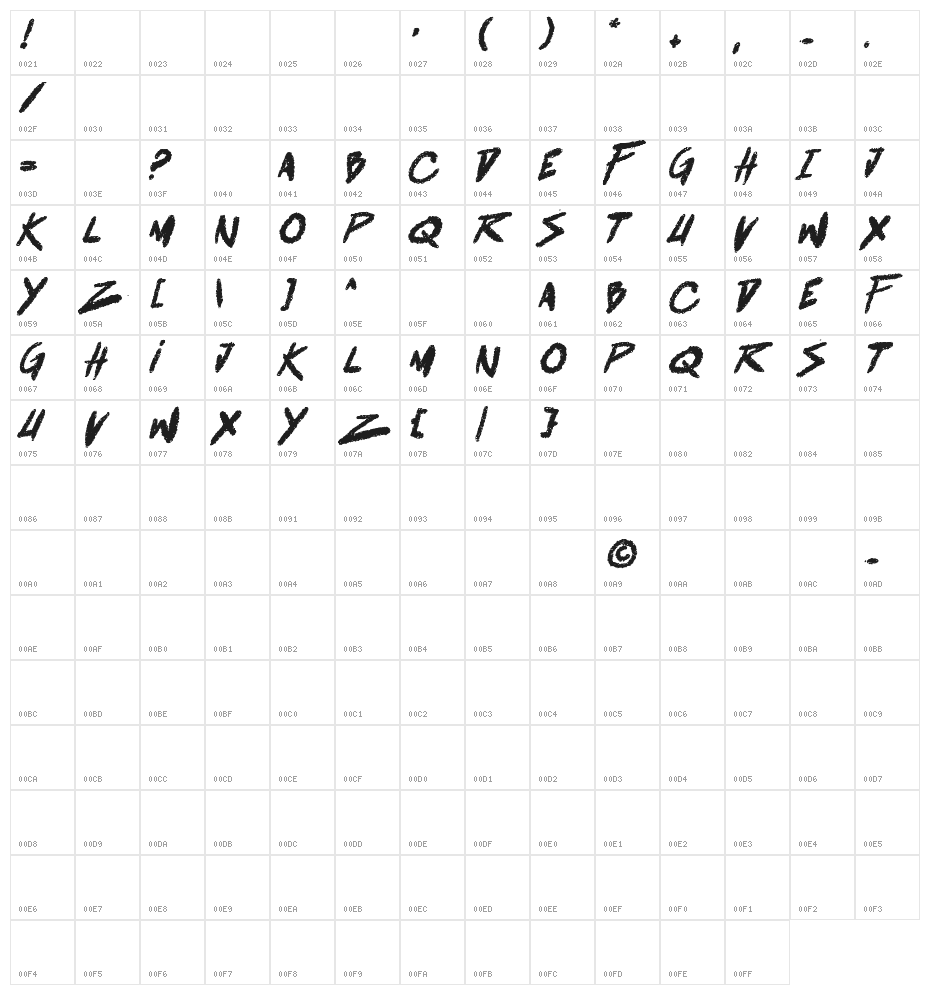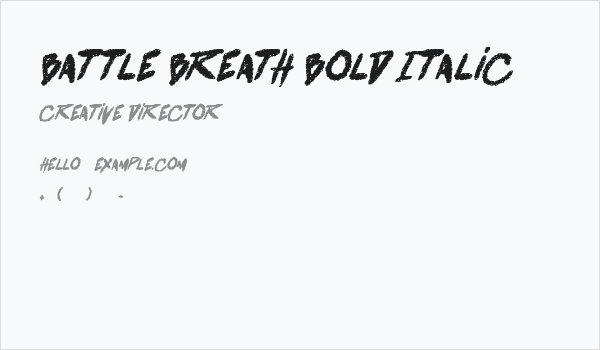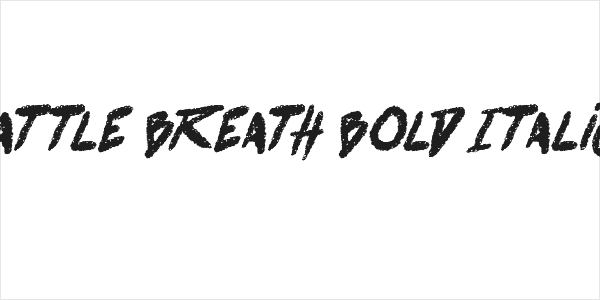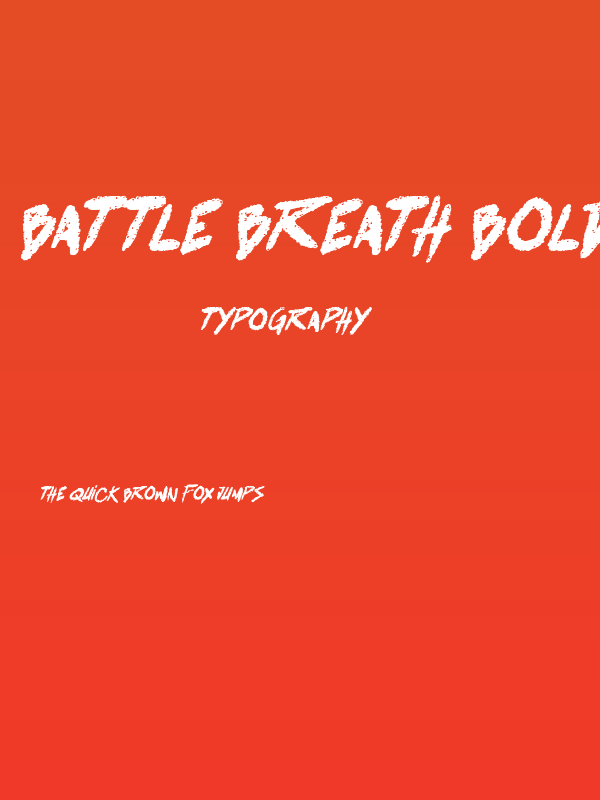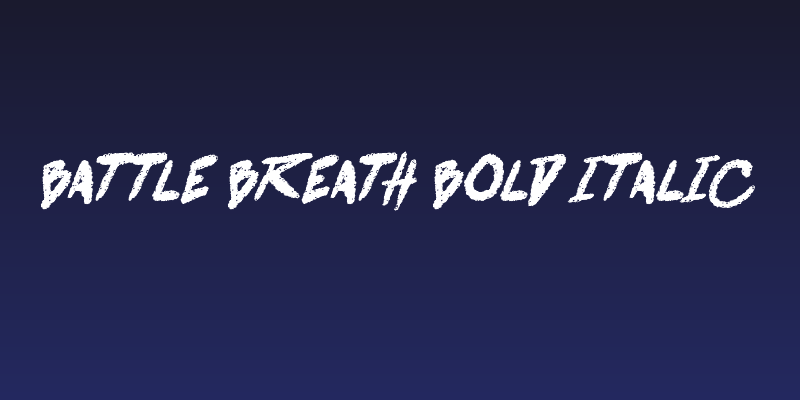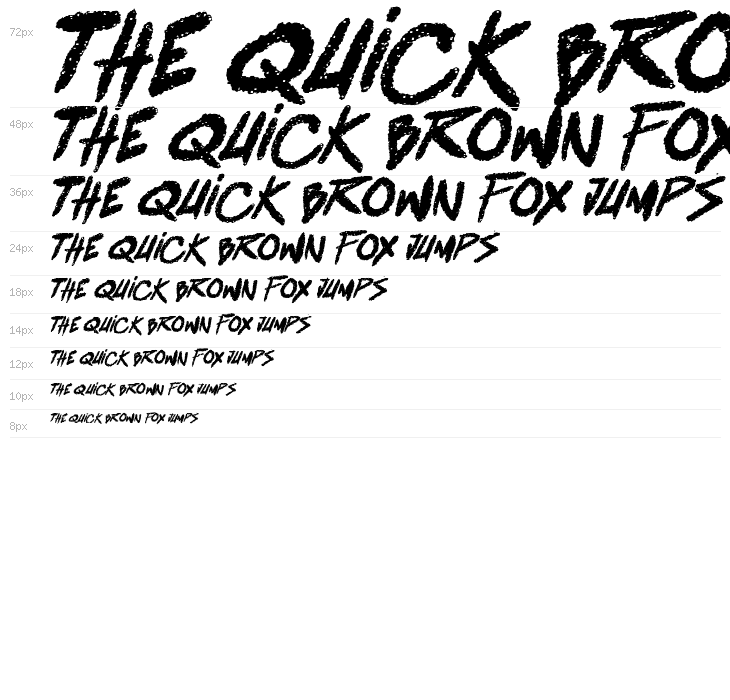
battle breath Bold Italic Font
battle breath Bold Italic Description
This font exudes a bold and dynamic energy, characterized by its thick, brush-like strokes and italicized slant. The uppercase and lowercase letters maintain a consistent, energetic flow, suggesting movement and urgency. The characters are slightly irregular, adding a hand-drawn, organic feel. The special characters and numbers follow the same stylistic approach, ensuring uniformity across the typeface. Its boldness and unique style make it stand out, perfect for projects that require a strong visual impact.
| Overall Style | Modern, Artistic |
| Use Case | Headlines, Posters, Branding |
| Proposed Projects | Ideal for posters, branding, headlines, and any design needing a bold, artistic touch. |